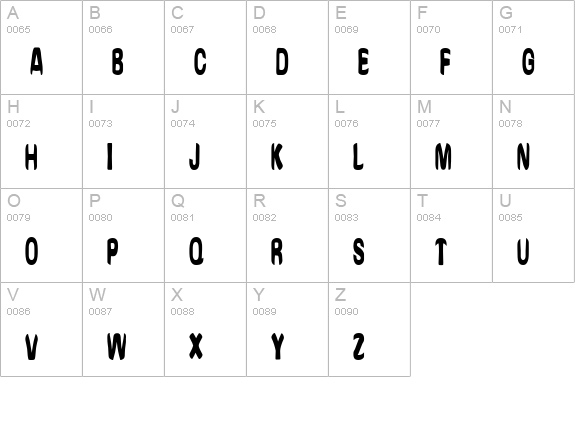
Yonder BRK Font Details
Yonder BRK font is a stylish and modern typeface that exudes sophistication and elegance. With its sleek lines and contemporary design, this font is perfect for adding a touch of class to any project. Whether you are creating a logo, designing a website, or crafting a marketing campaign, Yonder BRK font will make your text stand out and leave a lasting impression. The best part about Yonder BRK font is that it is completely free to download. You can easily access this beautiful font at FontsMarket.com and start using it in your projects right away. Don't miss out on the opportunity to enhance your designs with this exquisite typeface. Download Yonder BRK font today and elevate your creative work to new heights!